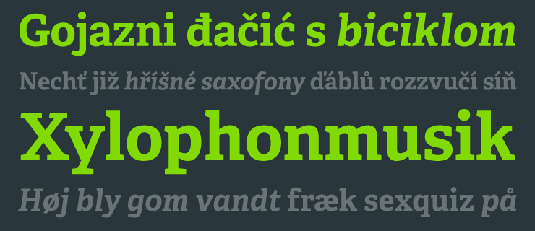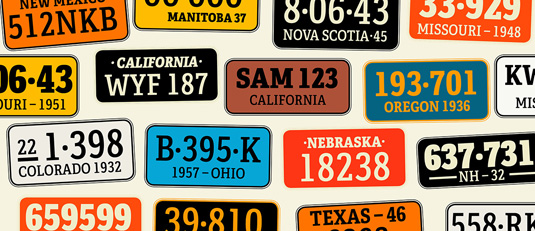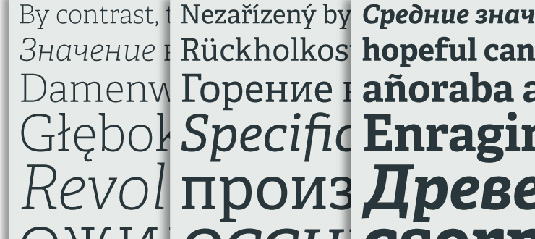
81. Adelle
- Veronika Burian and José Scaglione, 2010
Launched in 2006, TypeTogether has quickly established itself as one of Europe’s leading typeface foundries, thanks to the work of its co-founders: José Scaglione, graphic and typeface designer and lecturer in typography at the National University of Rosario and University of Buenos Aires; and Veronika Burian, award-winning type designer, whose career included a stint at the London offices of Dalton Maag.
Awarded gold in the Original Typeface category at the 2010 European Design Awards, Adelle is a slab serif typeface, that is especially legible making it perfectly suited for use in newspapers and magazines. Adelle is flexible, strong and subtle, while Adelle Sans is a more spirited take on traditional grotesque sans typefaces, making it ideal for branding, advertising and signage. This flexibility makes Adelle a true multi-purpose typeface.
The family is available in 14 different styles, ranging from light to heavy and comes with more than 1,100 characters per font including small caps, a broad range of ligatures and four sets of fractionals, figures, ordinals and other alternate characters.
As Adelle's size increases, the typeface begins to show-off its personality. Furthermore, recently the typeface has been updated for web and digital use, to improve rendering and cross-platform consistency. Eight styles have been adjusted so that they can be optimised for low-resolution rendering – giving the font better on-screen performance.